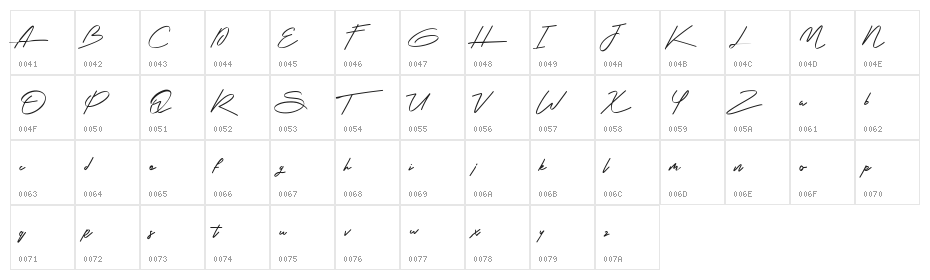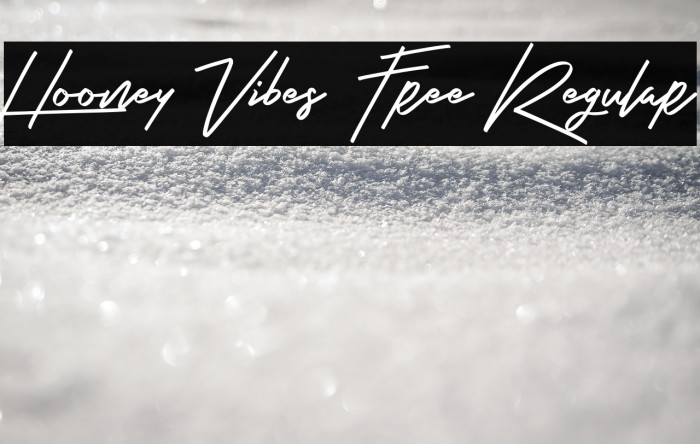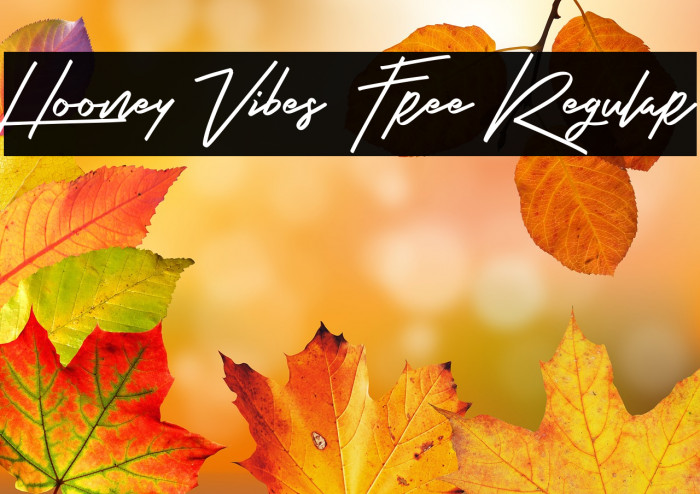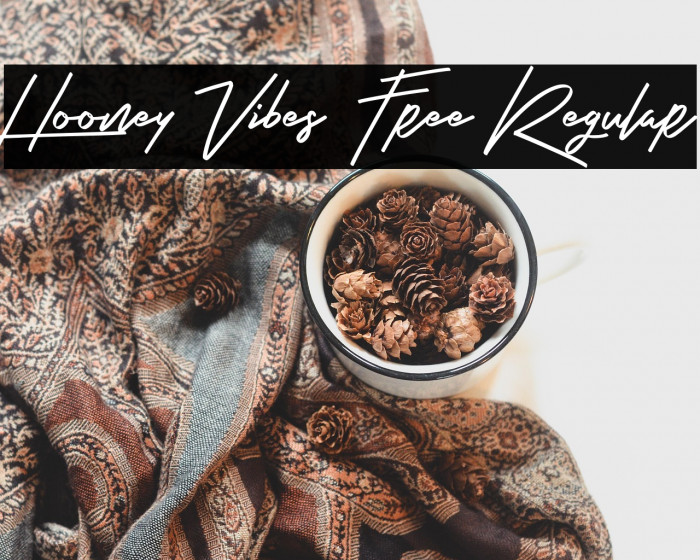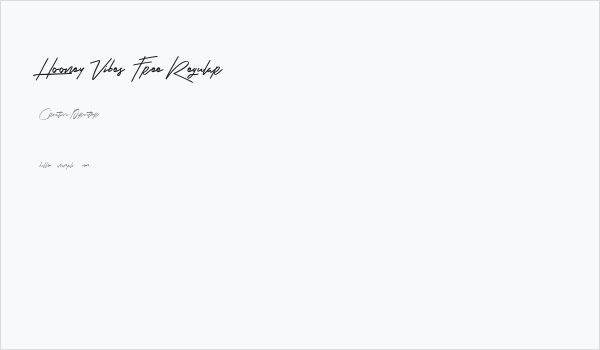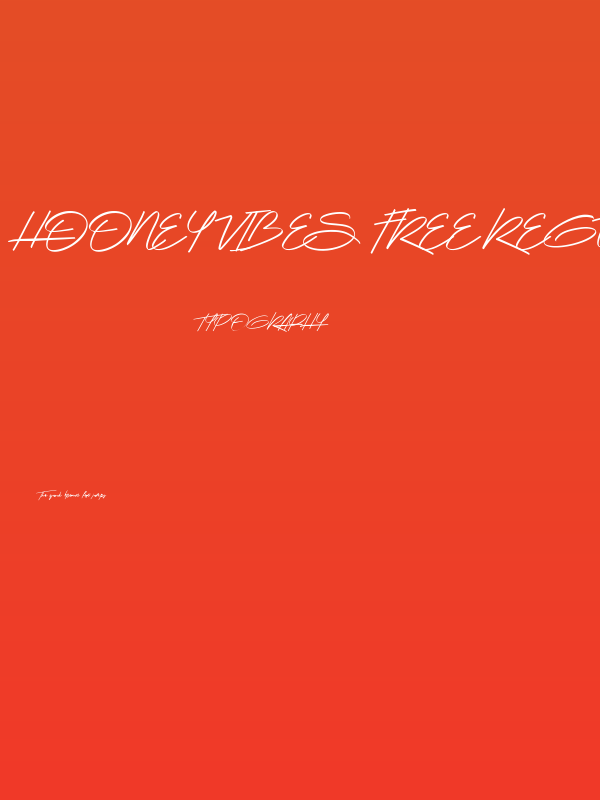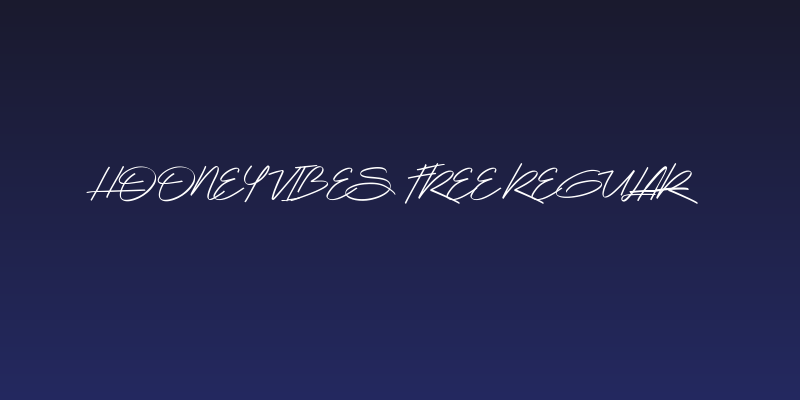
Hooney Vibes Free Regular Font
Hooney Vibes Free Regular Description
This font exudes a lively and dynamic energy with its handwritten style, characterized by fluid, sweeping strokes that mimic natural handwriting. The letters are connected in a cursive manner, giving it a seamless and flowing appearance. The font maintains a consistent stroke width, which adds to its legibility despite the playful and informal nature. It is ideal for projects that require a personal touch, such as invitations, greeting cards, or branding materials that aim to convey warmth and approachability.
| Proposed Projects | Ideal for invitations, greeting cards, personal branding, and creative projects requiring a personal touch. |